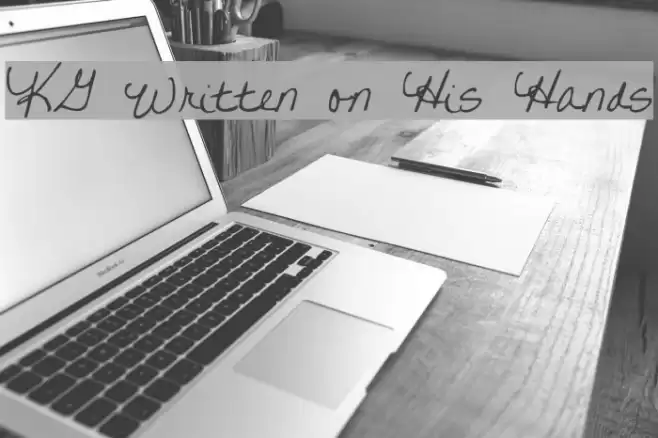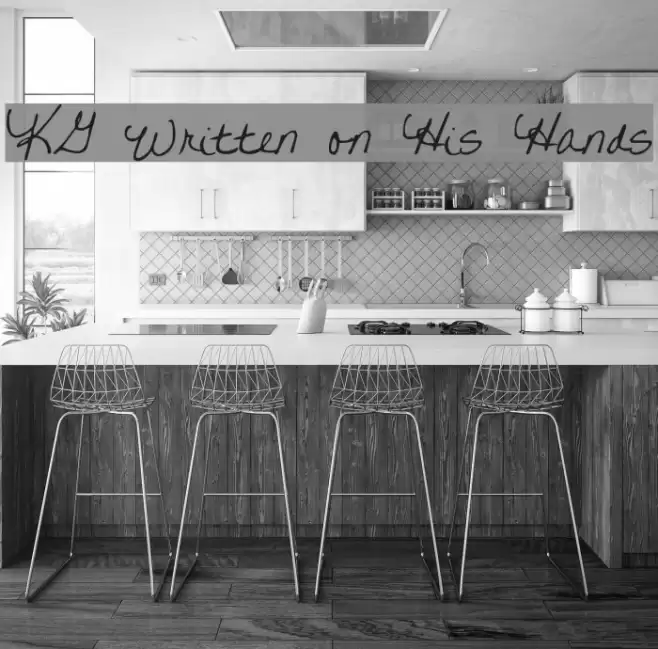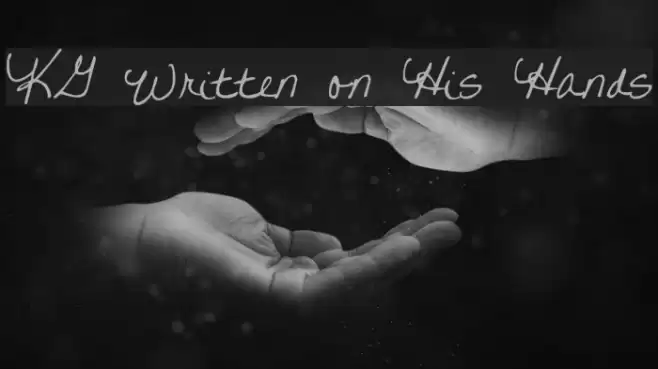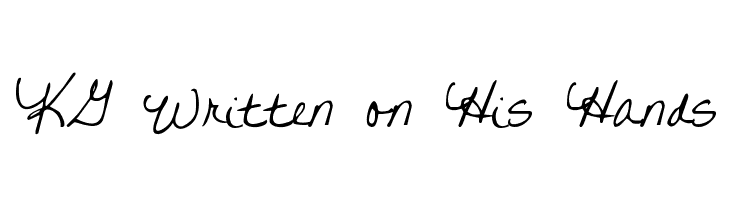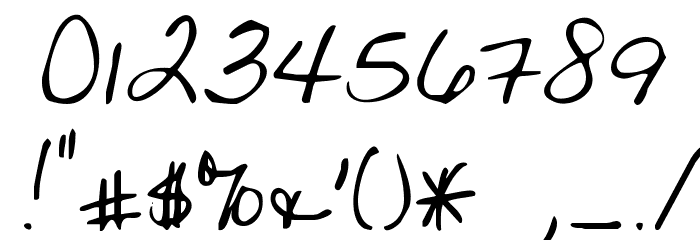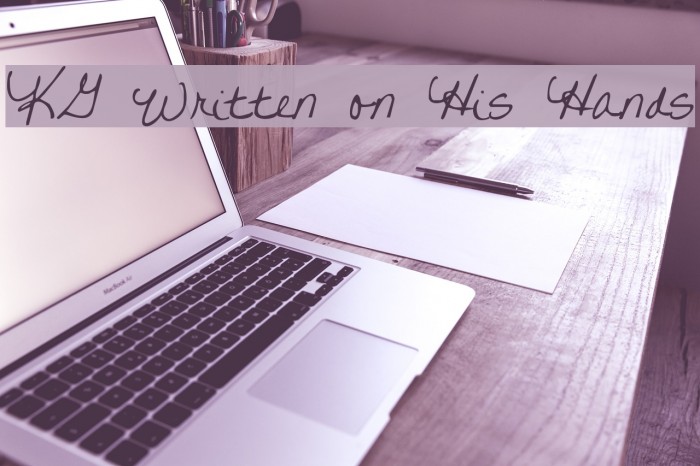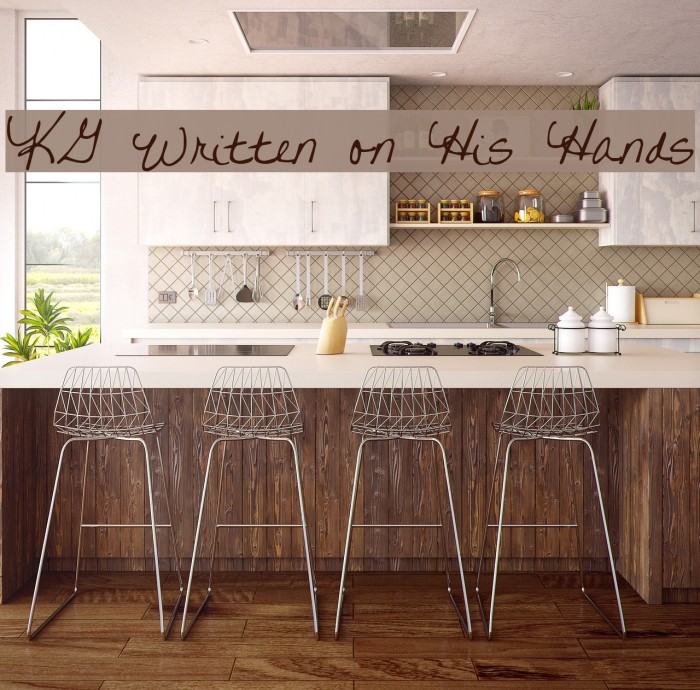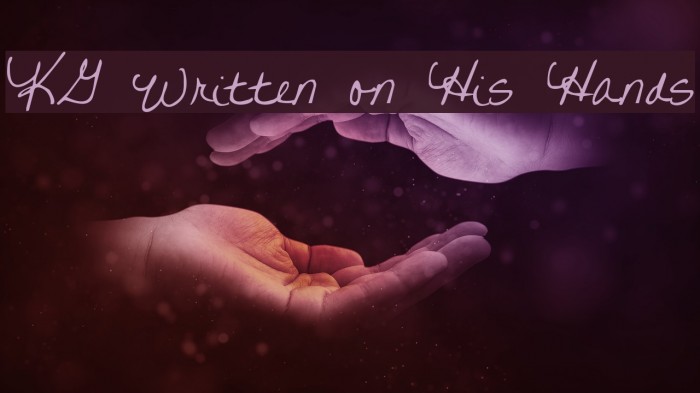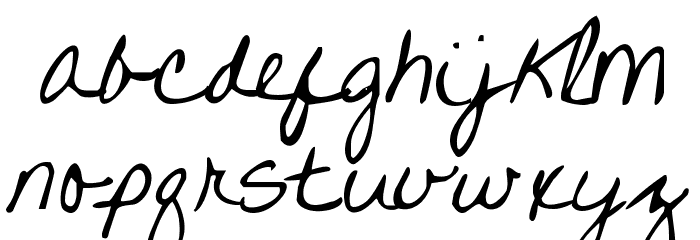
KG Written on His Hands Font
KG Written on His Hands Description
This font exudes a casual, handwritten style with a playful and personal touch. The letters are fluid and connected, mimicking the natural flow of cursive handwriting. Uppercase letters maintain a consistent height, while lowercase letters vary in size, adding to the informal aesthetic. The numbers and special characters are crafted with the same flowing style, ensuring a cohesive look across all glyphs. This font is ideal for projects that require a personal or informal tone, such as greeting cards, personal notes, or creative projects. Its unique style makes it stand out, while still being legible and approachable.
A casual, handwritten font with a playful and personal touch from Uncategorized fonts.
- Proposed Projects: Greeting cards, personal notes, creative projects, invitations.
- Overall Style: Casual, Playful
- Use Case: Headlines, Informal text, Creative projects